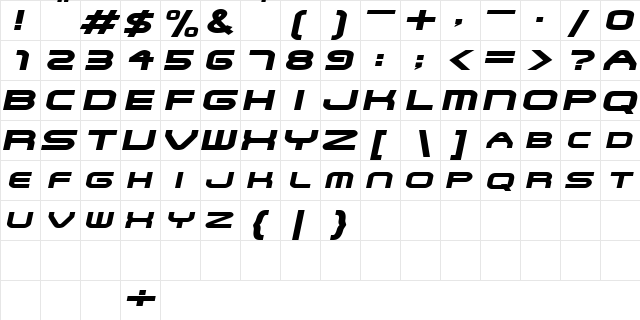
SNFUExtended Oblique
Design Context for SNFUExtended Typeface
SNFUExtended offers clean, dependable letterforms without strong stylistic allegiance, making it a practical choice for designers who need flexibility. The slanted form adds forward momentum and visual energy.